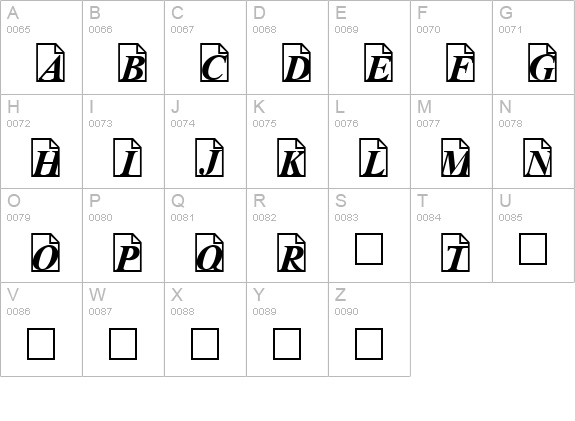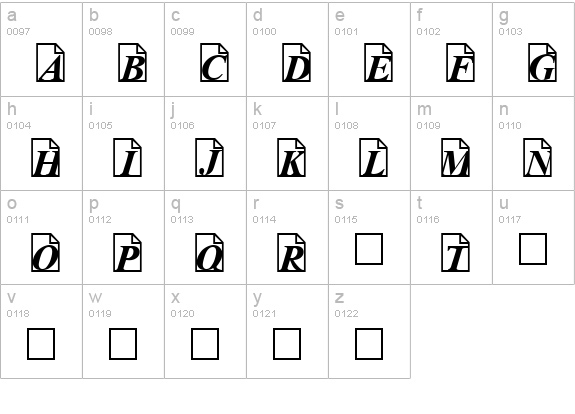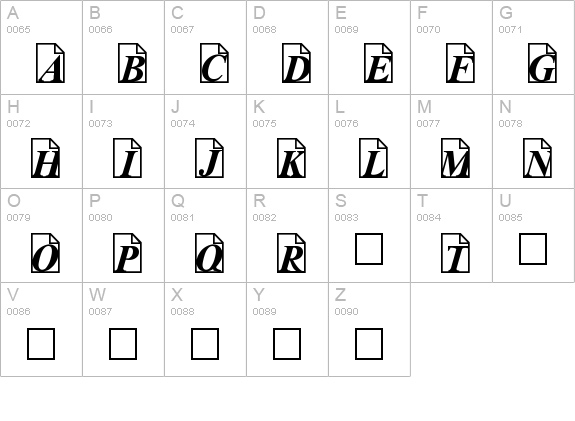
Paper Trail font is a unique and captivating typeface that is sure to grab attention. With its intricate details and flowing lines, this font adds a touch of elegance and sophistication to any project. It exudes a sense of nostalgia, reminiscent of handwritten letters on aged parchment. One of the best things about Paper Trail font is that it is completely free! Yes, you heard it right. This remarkable font is freely available to download at FontsMarket.com, making it accessible to everyone who wants to add a touch of creativity to their designs without breaking the bank. Paper Trail font is versatile and can be used in a variety of projects, such as branding, logo design, invitations, packaging, and more. Its elegance and vintage charm make it perfect for both digital and print media. Whether you are designing a wedding invitation or creating a book cover, this font will surely elevate your design to another level. The intricate details of Paper Trail font are truly eye-catching. Each letter is meticulously crafted, with delicate curves and graceful strokes. The result is a font that is not only beautiful but also highly legible, ensuring that your message is conveyed effectively. So, why wait? Take advantage of this amazing opportunity to download Paper Trail font for free at FontsMarket.com. Unleash your creativity and let this font bring your designs to life. Whether you are a professional designer or a passionate hobbyist, this font is sure to become a favorite in your collection. Don't miss out on this incredible offer – get your hands on Paper Trail font and start creating stunning designs today!